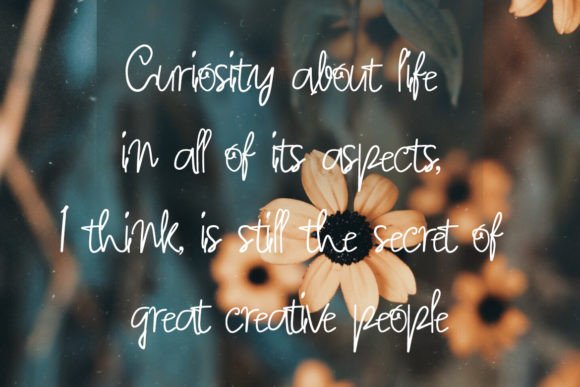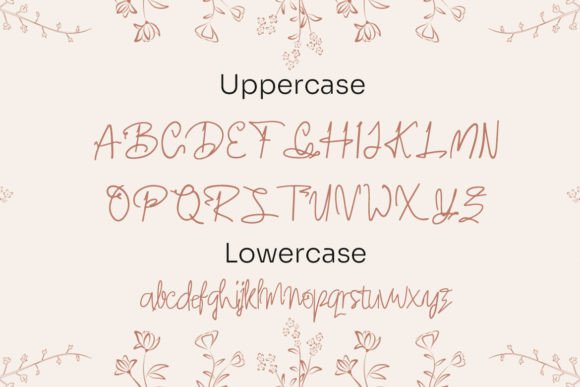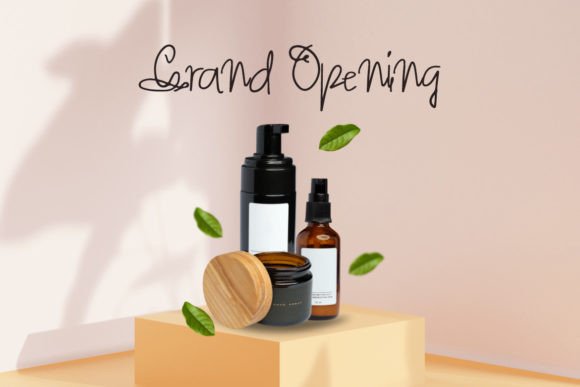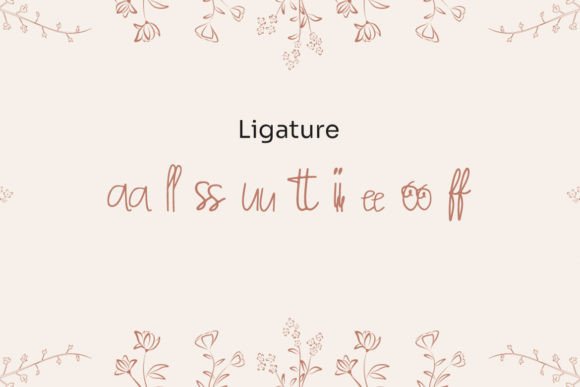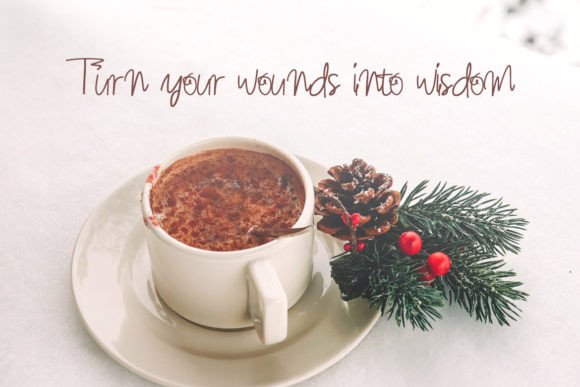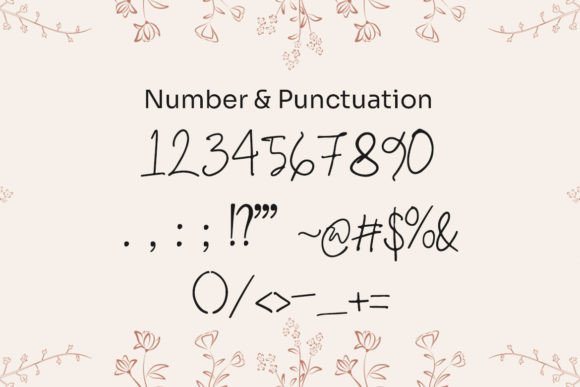
Introducing Betthamy Duffoe Font: Elevate Your Designs with Elegance and Sophistication
In the world of typography, a well-crafted font can make all the difference in elevating your designs from ordinary to extraordinary. If you’re a designer, crafter, or simply someone who appreciates the art of beautiful typography, you’re in for a treat. Say hello to Betthamy Duffoe Font, a sleek and contemporary script font that exudes elegance and sophistication.
A Perfect Blend of Style and Readability
Betthamy Duffoe Font boasts clean lines and fluid strokes that effortlessly command attention. Its minimalist design ensures that your message is conveyed with clarity, making it perfect for creating invitations, logos, and branding materials that demand attention. Whether you’re designing a wedding invitation, a business logo, or a social media graphic, this font is sure to impress.
One of the standout features of Betthamy Duffoe Font is its stylish curves, which add a touch of class to any project. The font’s sleek and modern aesthetic makes it perfect for designers who want to create sophisticated and eye-catching designs. The clean lines and fluid strokes also ensure that the font remains highly readable, even at small sizes.
PUA Encoding: Unlocking Endless Creative Possibilities
Betthamy Duffoe Font takes convenience to the next level with its PUA (Private Use Area) encoding. This means that you can access all glyphs and swashes effortlessly, giving you the creative freedom to experiment with different design elements. With PUA encoding, you can easily insert special characters, ligatures, and swashes to add a personal touch to your designs.
Whether you’re a seasoned designer or a crafty DIY enthusiast, PUA encoding makes it easy to get the most out of Betthamy Duffoe Font. No more tedious searching for specific characters or wrestling with complicated font files. With Betthamy Duffoe Font, you can focus on what matters most – creating stunning designs that capture your unique style and vision.
Betthamy Duffoe Font is a versatile font that’s perfect for a wide range of design applications. Whether you’re creating:
• Logos and branding materials
• Signs and banners
• Packaging and product labels
This font is sure to become a go-to in your design arsenal. Its elegant and sophisticated aesthetic makes it perfect for designers and crafters who want to add a touch of luxury to their work.
Key Features of Betthamy Duffoe Font
• Sleek and contemporary script font
• Elegant and sophisticated aesthetic
• Clean lines and fluid strokes
• Highly readable at any size
• PUA encoded for easy access to glyphs and swashes
• Perfect for invitations, logos, branding materials, and more
Betthamy Duffoe Font is a stunning script font that’s sure to elevate your designs to new heights. With its sleek and contemporary aesthetic, clean lines, and fluid strokes, this font is perfect for designers and crafters who want to add a touch of elegance and sophistication to their work. Whether you’re creating invitations, logos, or branding materials, Betthamy Duffoe Font is a versatile and stylish choice that’s sure to impress.